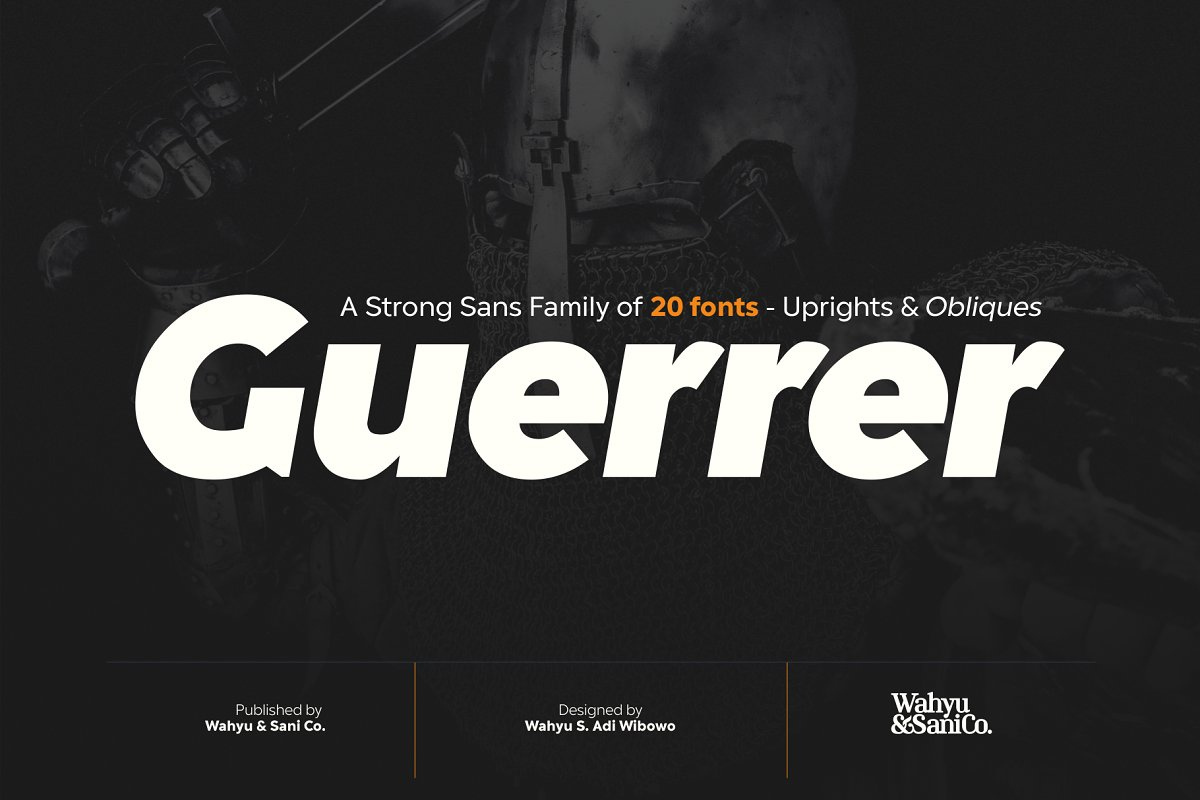
Guerrer Font
Guerrer Font is perfect for warrior-themed gaming brands, military-inspired designs, combat sports marketing, survival gear packaging, tactical equipment branding, action movie titles, competitive esports identities, strength training campaigns, and battle-focused entertainment materials.
What makes Guerrer Font exciting is its fierce warrior character that embodies the relentless spirit of battle and the unwavering determination of champions through bold, combat-inspired letterforms. The font features strong, angular structures with warrior-like intensity that evokes the strength, courage, and tactical precision required for victory in any arena. Its commanding presence and battle-tested aesthetic make it perfect for brands that want to communicate fighting spirit, competitive excellence, and the unbreakable resolve that separates winners from the defeated while inspiring audiences to embrace their inner warrior.
Guerrer Font family includes various combat weights such as Regular, Bold, Heavy, and Black variations, often featuring battle-inspired alternates and warrior decorative elements. The family may include tactical symbols, combat ornaments, and warrior-themed ligatures that enhance the font's militant aesthetic, providing designers with comprehensive options for creating powerful brand identities that resonate with competitive spirits and warrior mentalities.